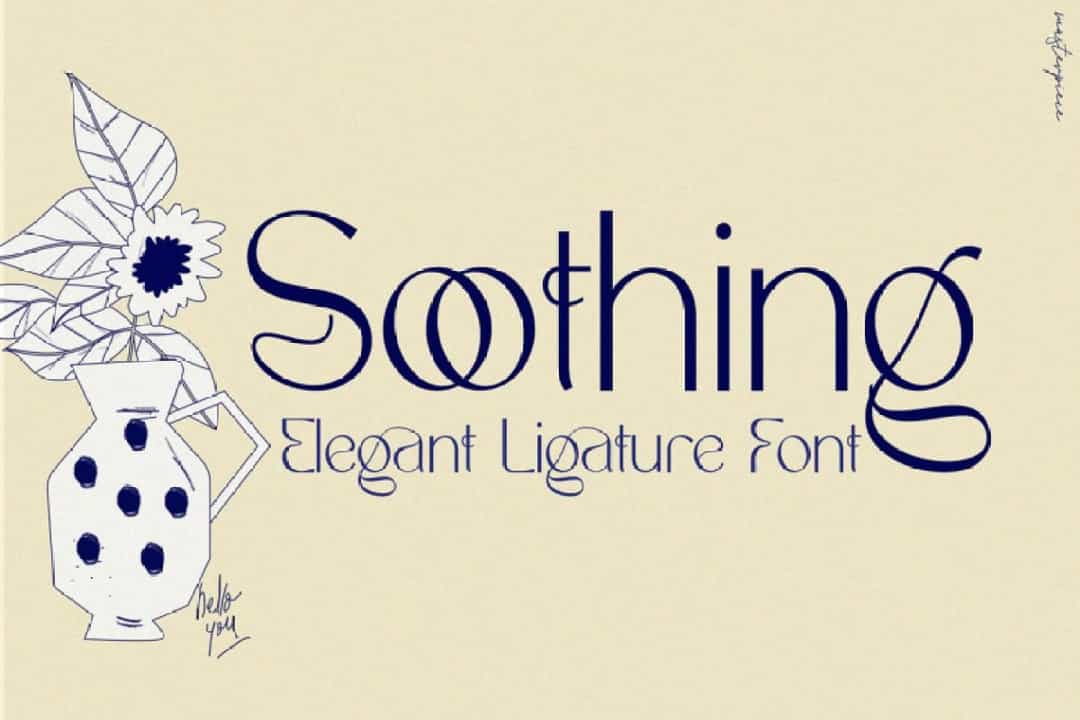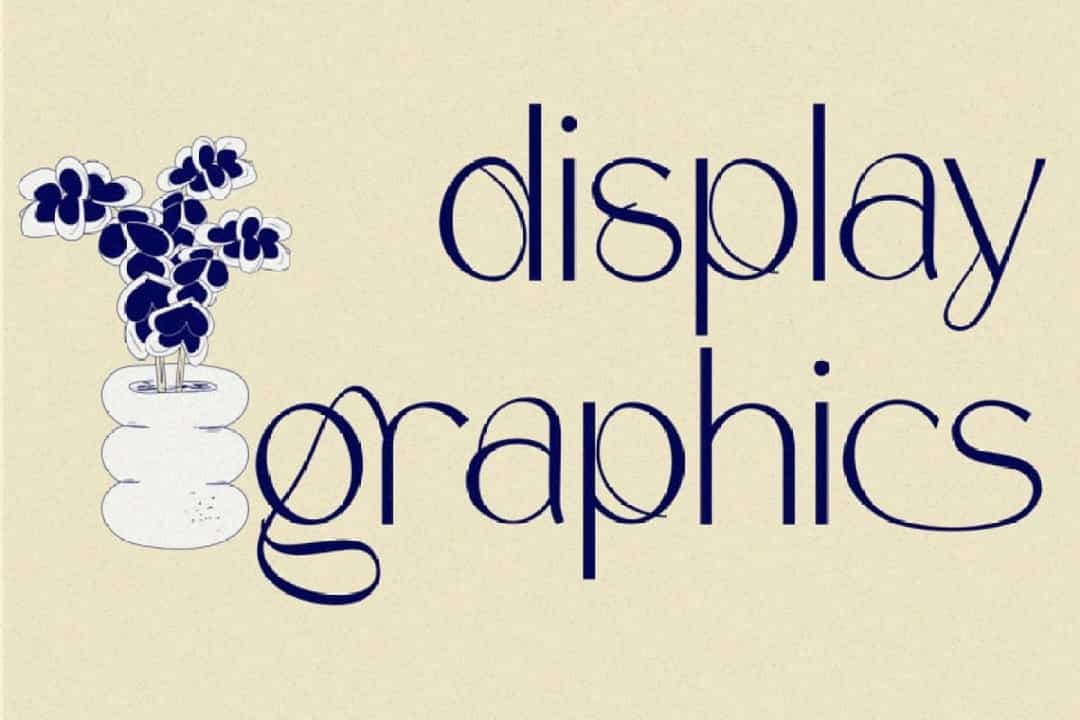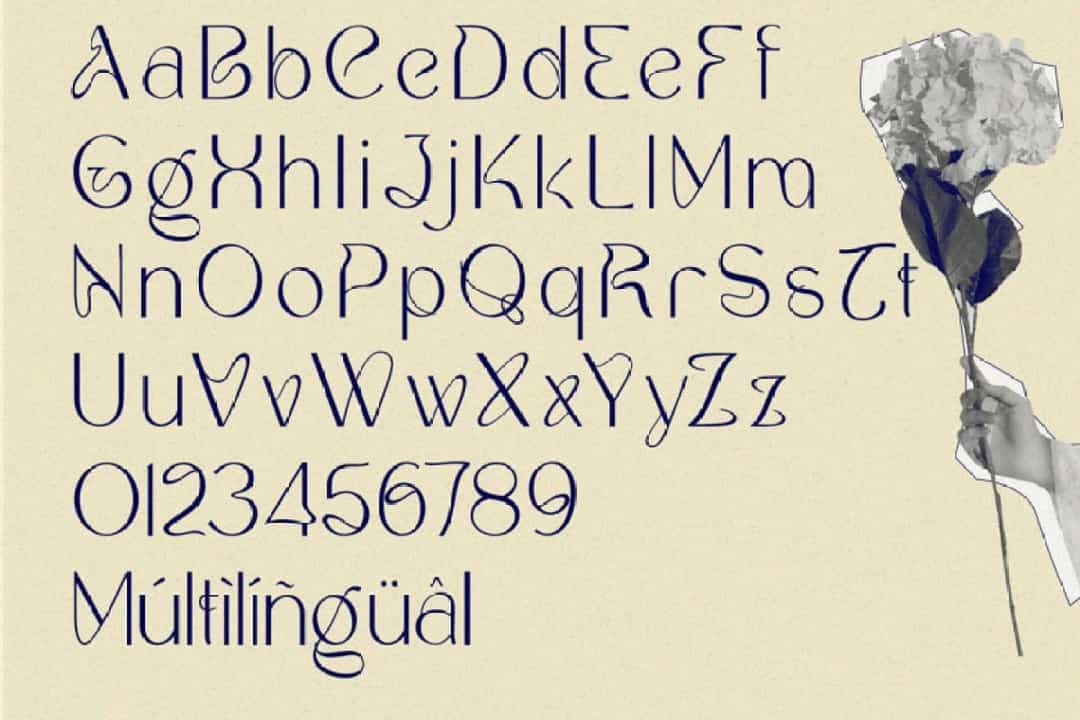
Discover Soothing Font, part of the Sans Serif Display Basic Personal collection—a versatile and unique font perfect for adding a personal touch to your projects. Download it for free and enjoy crafting designs with style, from invitations to social media posts. This font is available exclusively for personal use, giving you the freedom to create without limits. Unlock your creativity with Soothing Font today!
Soothing Unique Ligature Font is an easily distinguished font that is ideal for brand and logo creation that will make your design stand out. Ligatures that are used in connecting letters make this font very versatile and graceful; ideal for designing beautiful logos that are classy and stylish!